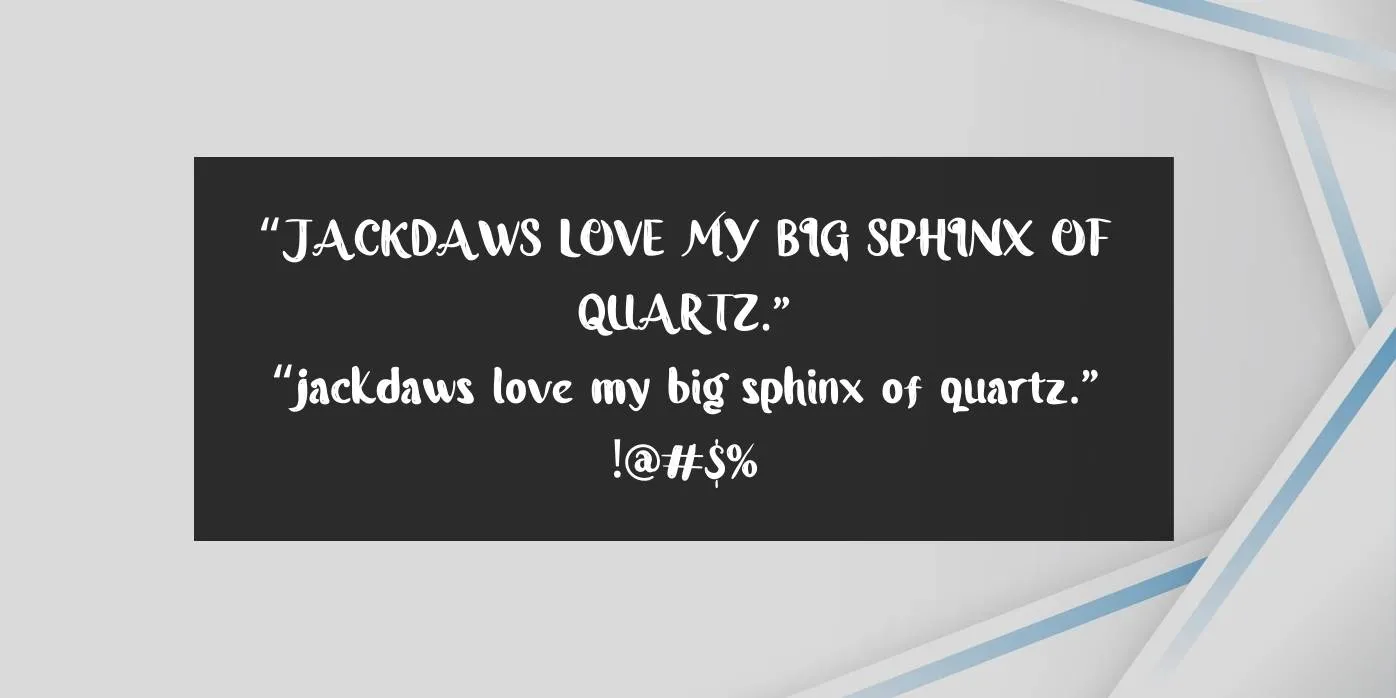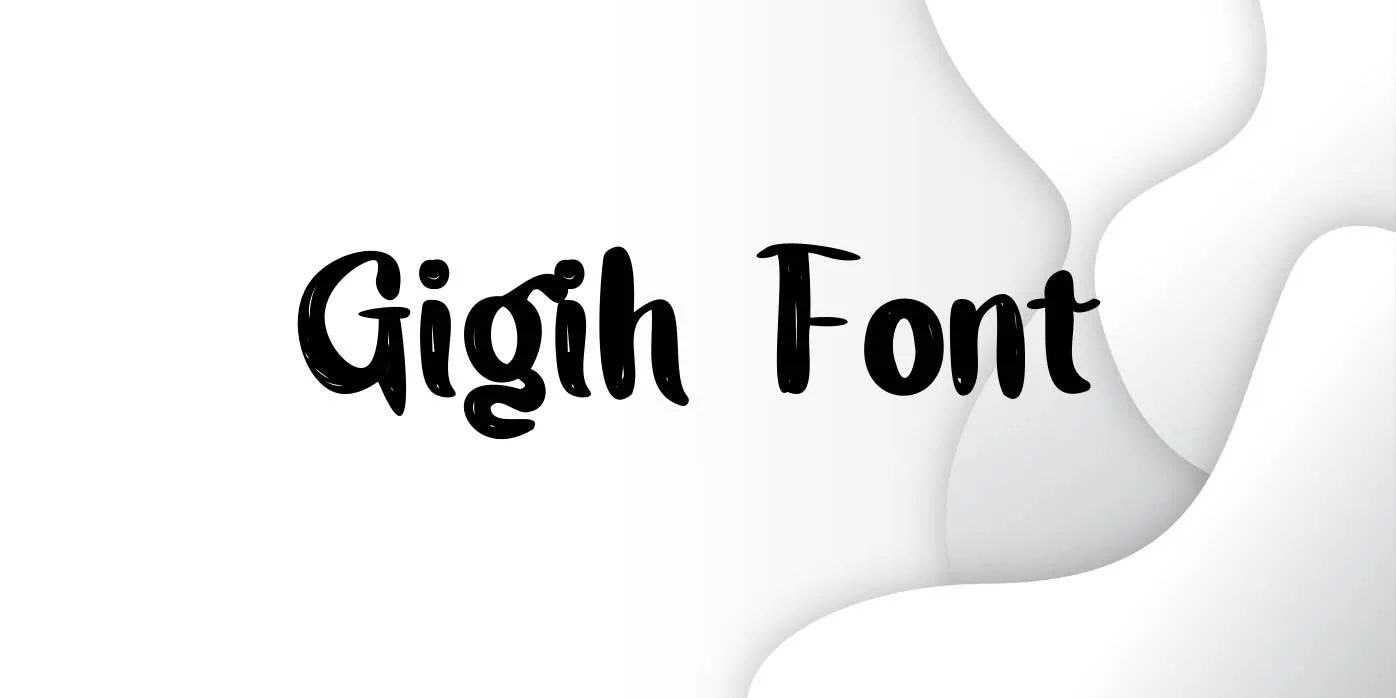
Gigih Font
Gigih Font is a display typeface that was designed by Twinletter. This classy typeface is perfect for headlines, logos, and other display purposes. This typeface family includes four different styles: Regular, Bold, Italic, and Bold Italic. For more advanced uses, you will have to use its alternative sports jersey font which has the same features.
Each style contains upper and lowercase letters, numbers, and punctuation marks. You can use this typeface for Adobe Photoshop, and Canva.  Gigih Font is a great choice for any project that needs a touch of elegance. This typeface will provide an online tool by using this you can convert your simple designs into colorful graphic designs. Its copy and paste function is perfect for all textual designs.